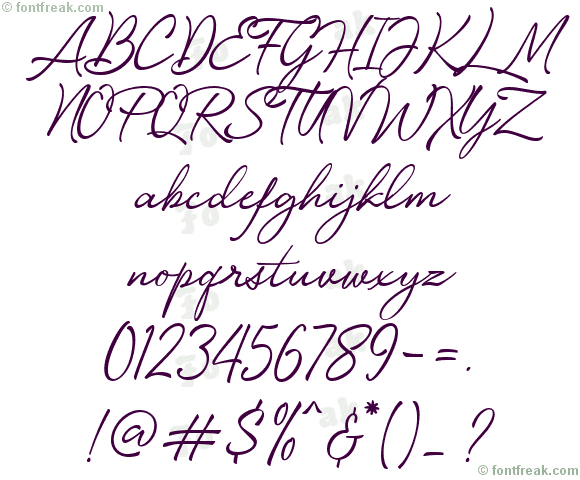
LoyaltyScriptDemo
LoyaltyScriptDemo by 50Fox Studio is a captivating script font that beautifully captures the essence of elegance and creativity. This handwritten-style typeface features a fluid and organic design, characterized by its varying stroke weights and gentle curves. The contrast between thick and thin lines adds a dynamic visual interest, making it an excellent choice for projects that require a touch of sophistication. The letterforms are well-spaced, promoting readability while maintaining a stylish appearance.
This font is particularly suited for wedding invitations, where its romantic flair can enhance the overall aesthetic. Additionally, it works wonderfully for branding projects, such as logo design for boutiques or artisanal shops, giving a personal and inviting feel. LoyaltyScriptDemo also shines in creative endeavors like greeting cards or event flyers, where a unique handwritten touch can leave a lasting impression. For small business owners looking to add character to their restaurant menus or promotional materials, this font offers a perfect blend of charm and professionalism.
The target audience for LoyaltyScriptDemo includes graphic designers, small business owners, and content creators who seek a distinctive font to elevate their work. Its versatility allows for a wide range of applications, appealing to those looking for a font that stands out yet remains approachable.
What truly sets the LoyaltyScriptDemo font apart is its ability to convey emotion and personality through typography. Its graceful curves and artistic flair make it not just a font, but a powerful tool for storytelling. For those interested in adding a unique touch to their designs, the LoyaltyScriptDemo font free download offers an easy way to enhance creative projects and make a memorable impact.